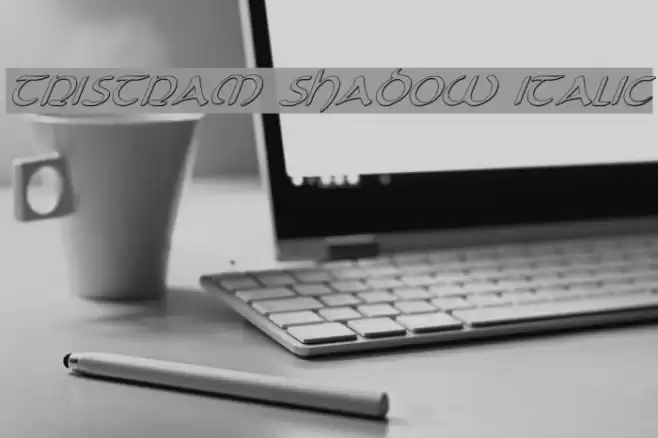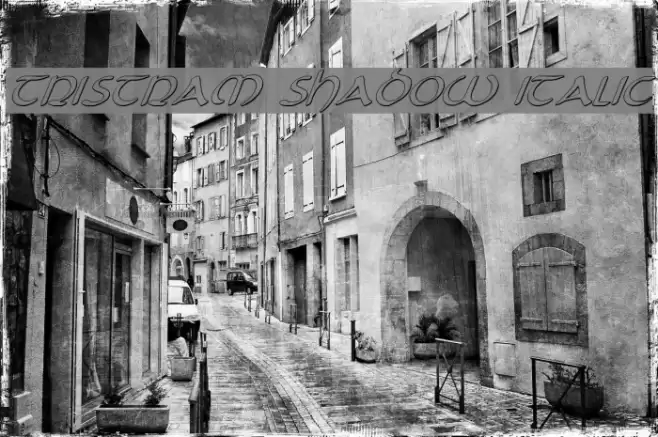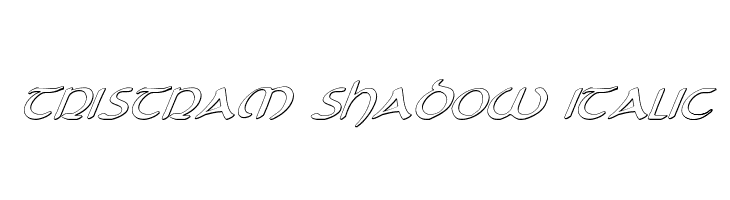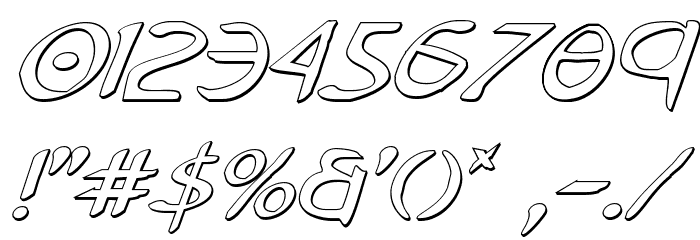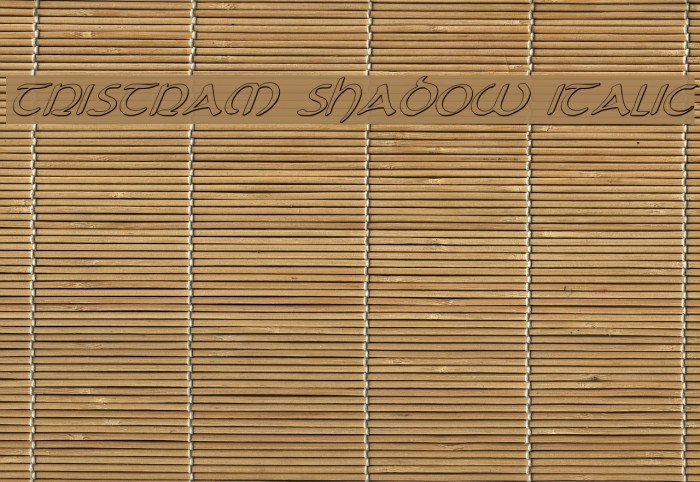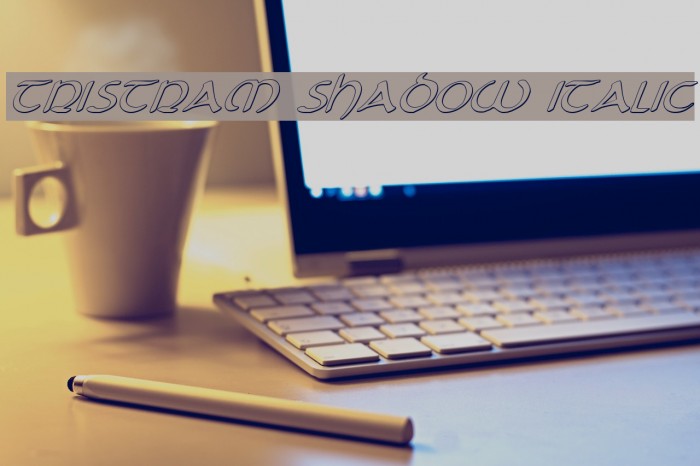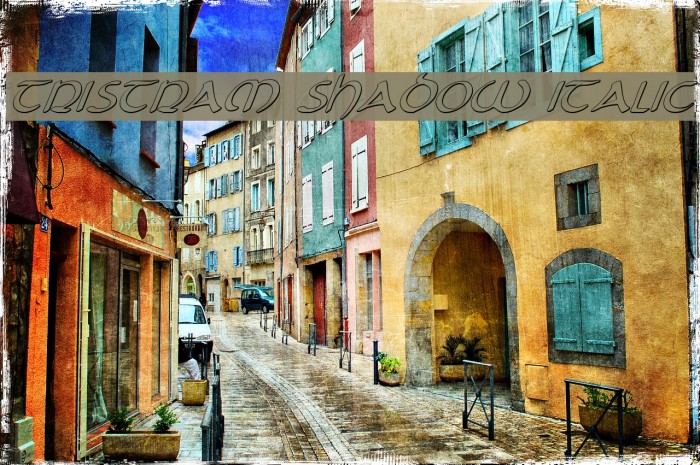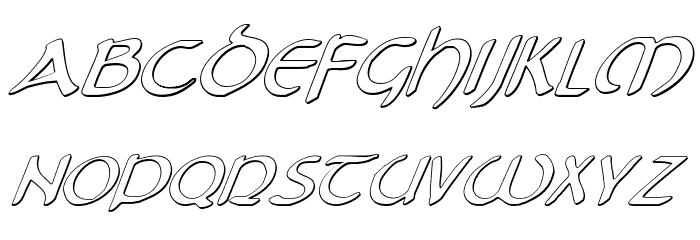
Tristram Shadow Italic Font
Tristram Shadow Italic Description
This font features a unique and artistic style with a shadow effect that adds depth to each character. The letters are italicized, giving them a dynamic and flowing appearance. The uppercase and lowercase letters maintain a consistent design, with smooth curves and a slight slant. The numbers and special characters follow the same aesthetic, ensuring a cohesive look across all elements. The shadow effect is subtle yet effective, enhancing the overall visual impact without overwhelming the design.
An italicized font with a shadow effect, offering a dynamic and artistic style from Gothic fonts.
- Proposed Projects: Ideal for creative projects such as posters, logos, and branding materials where a distinctive and artistic touch is desired.
- Use Case: Logos, Posters, Creative Branding